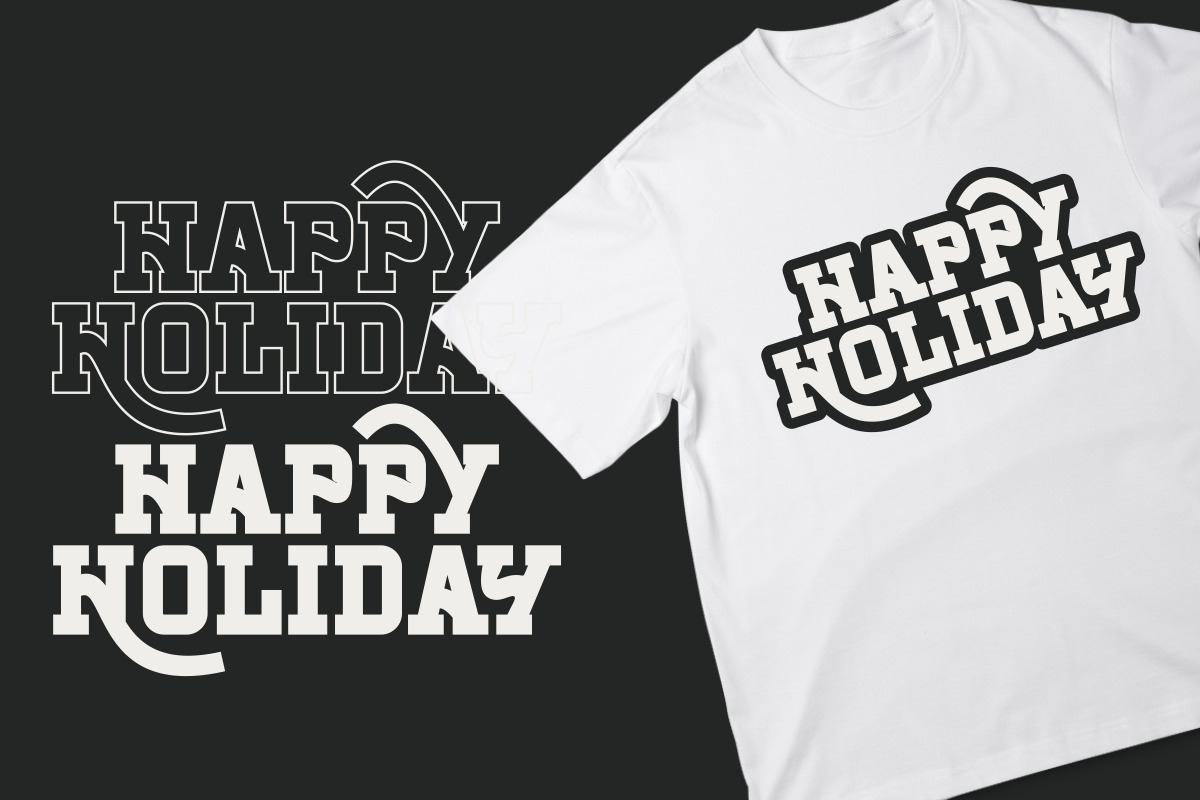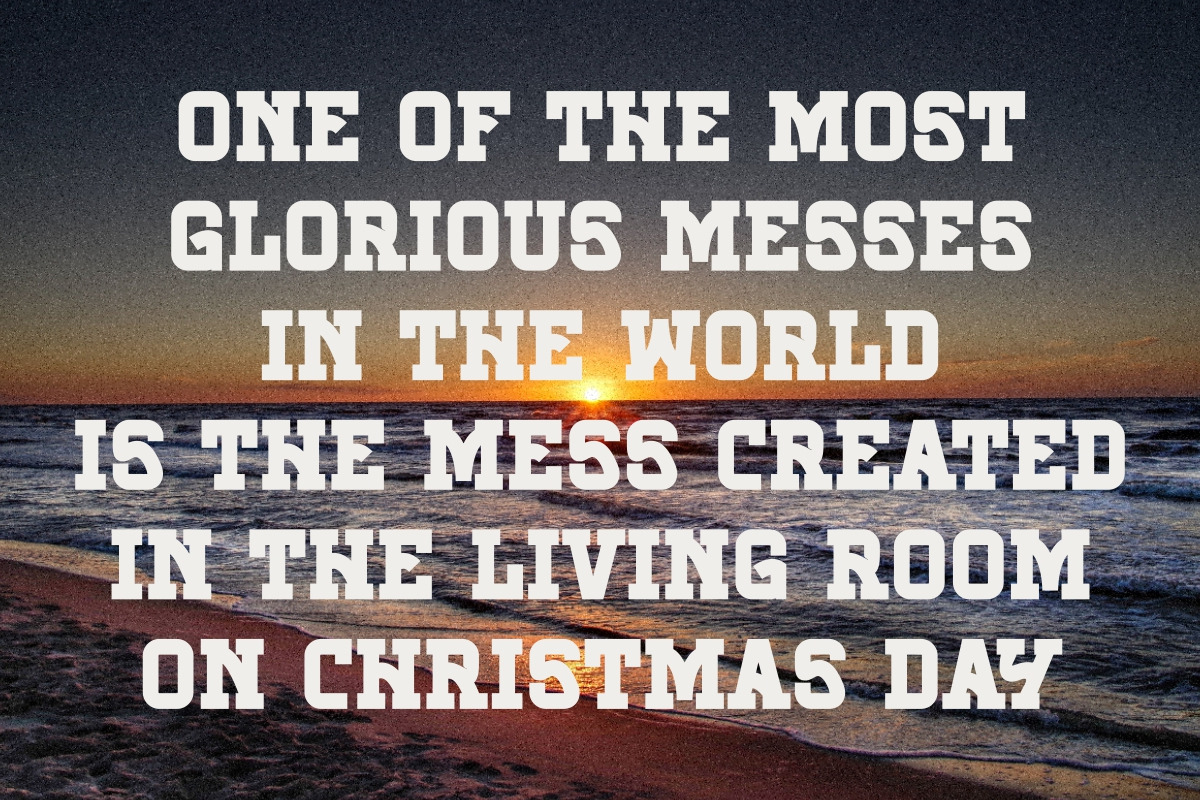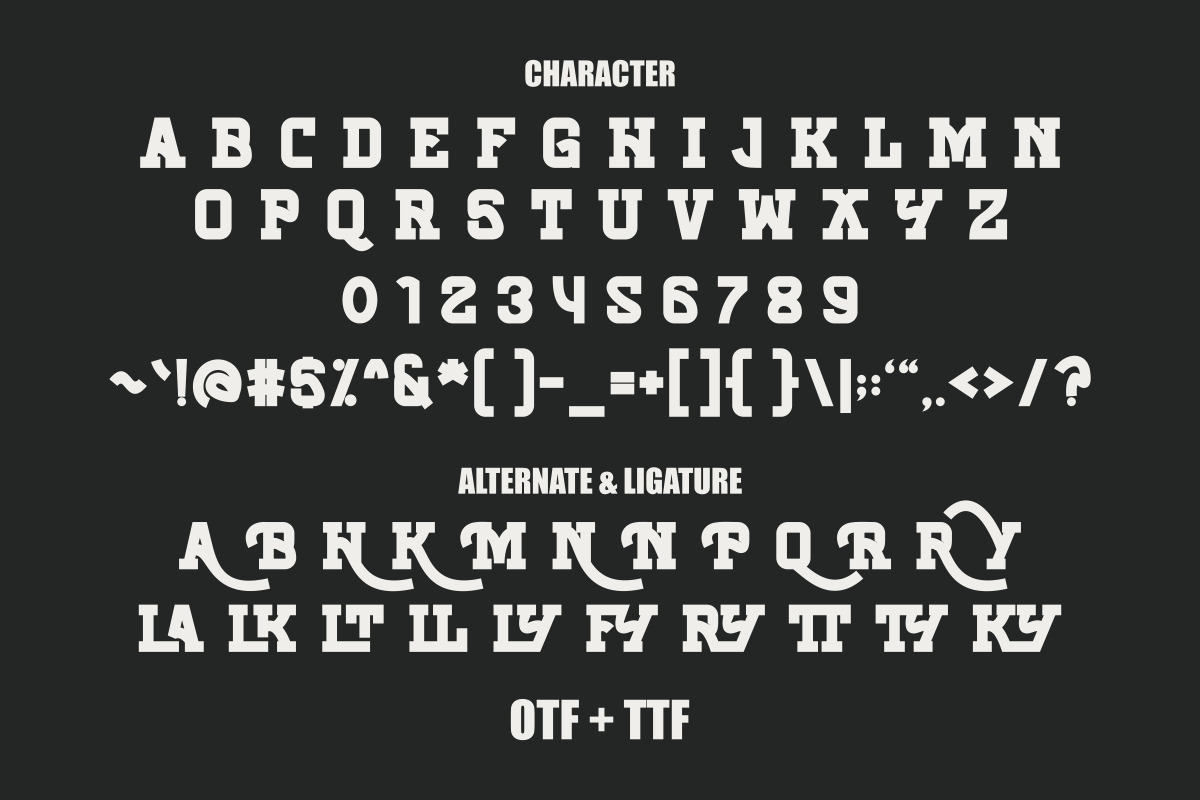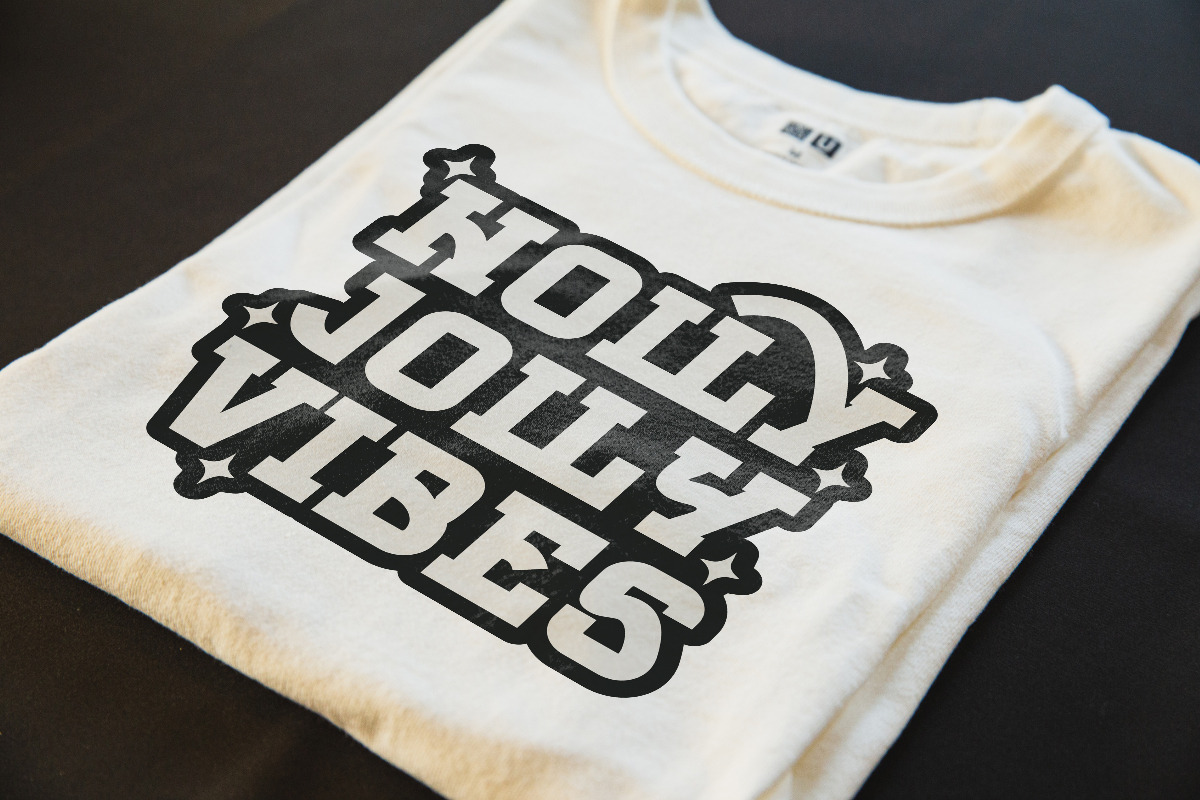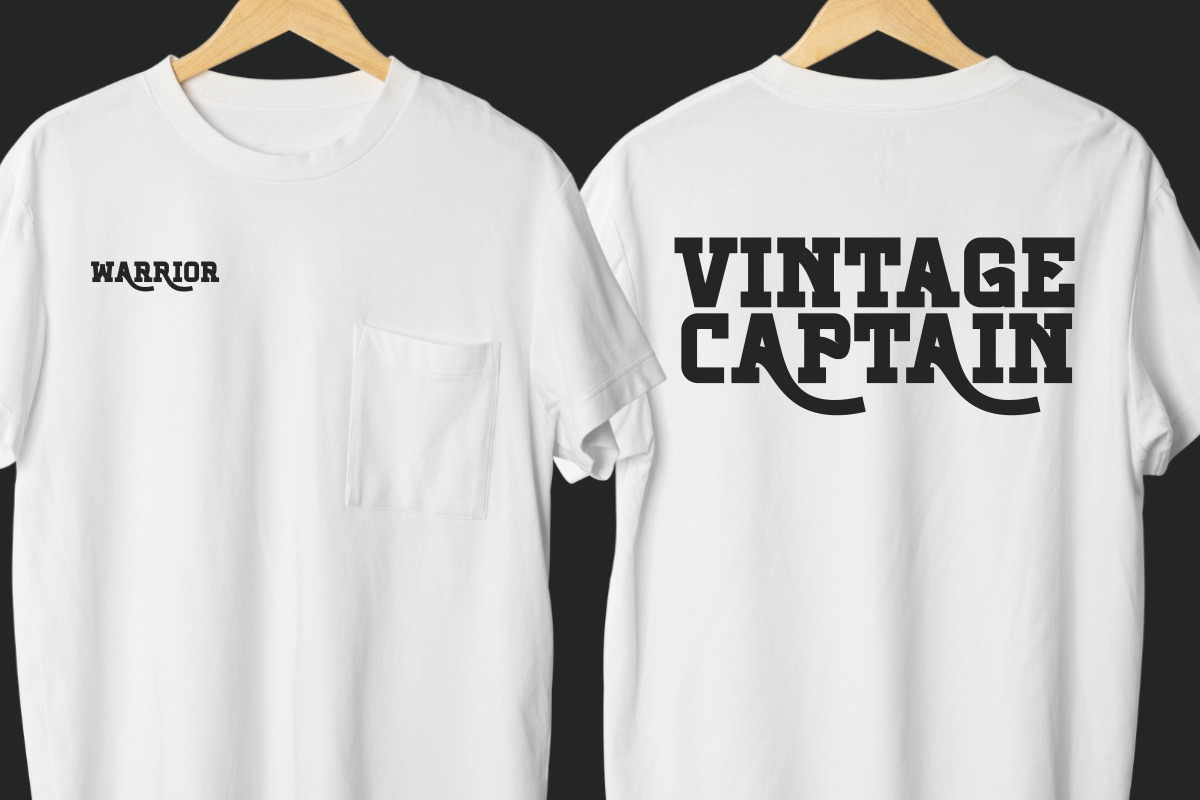
Holiday Hearth - Modern Slab
Holiday Hearth is a bold and modern slab serif font inspired by the festive spirit of Christmas and Thanksgiving. Its thick and sturdy design makes it perfect for eye-catching apparel mockups, such as t-shirts, hoodies, and more.